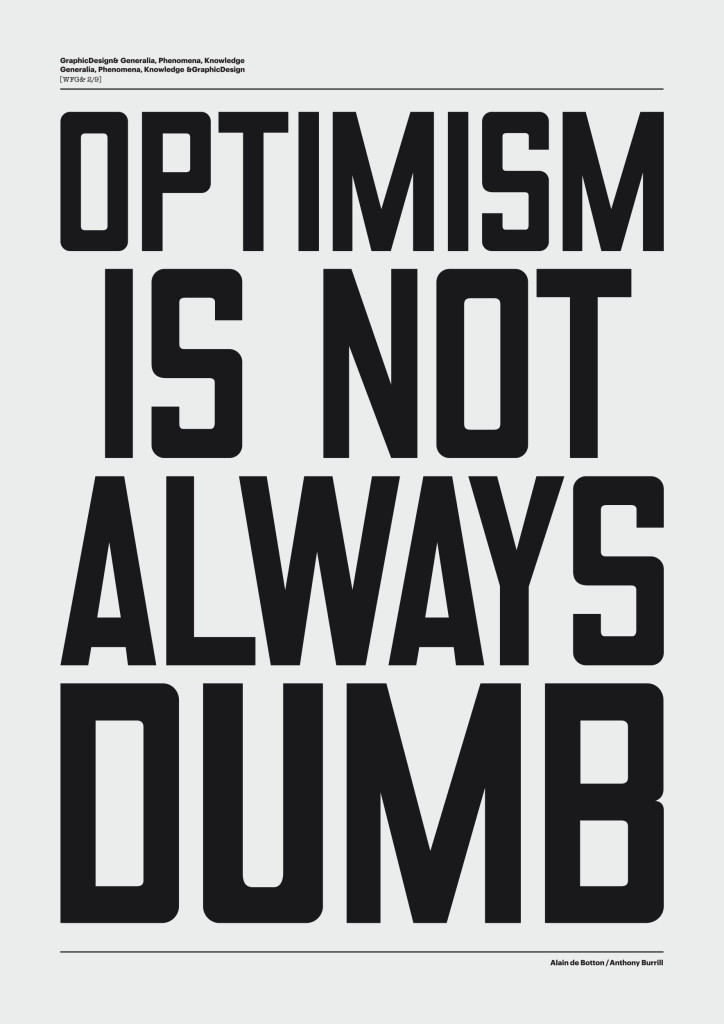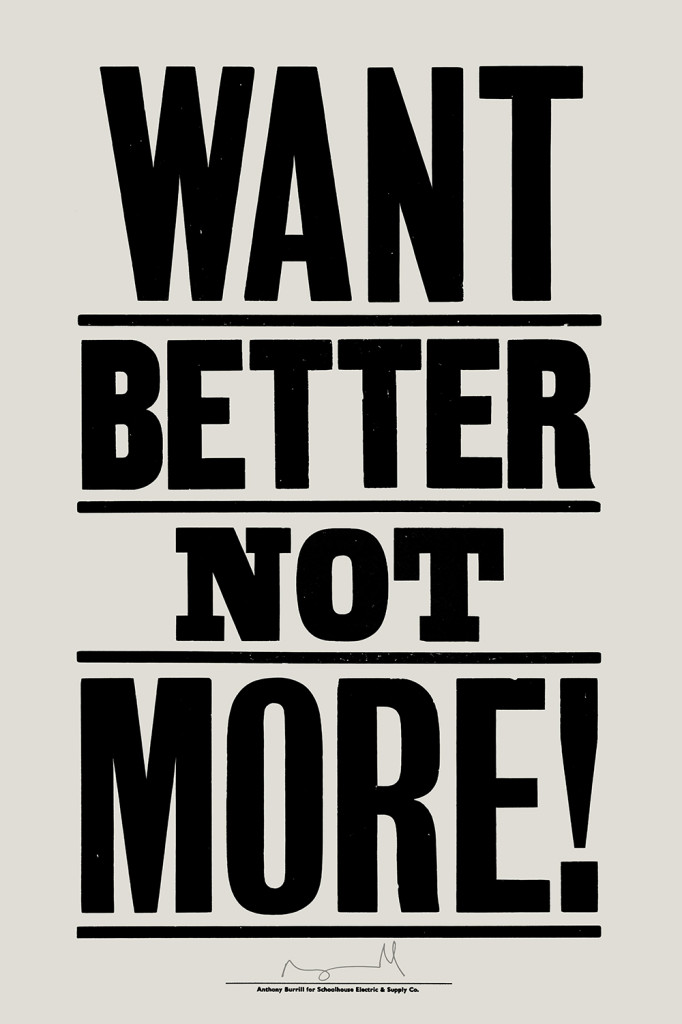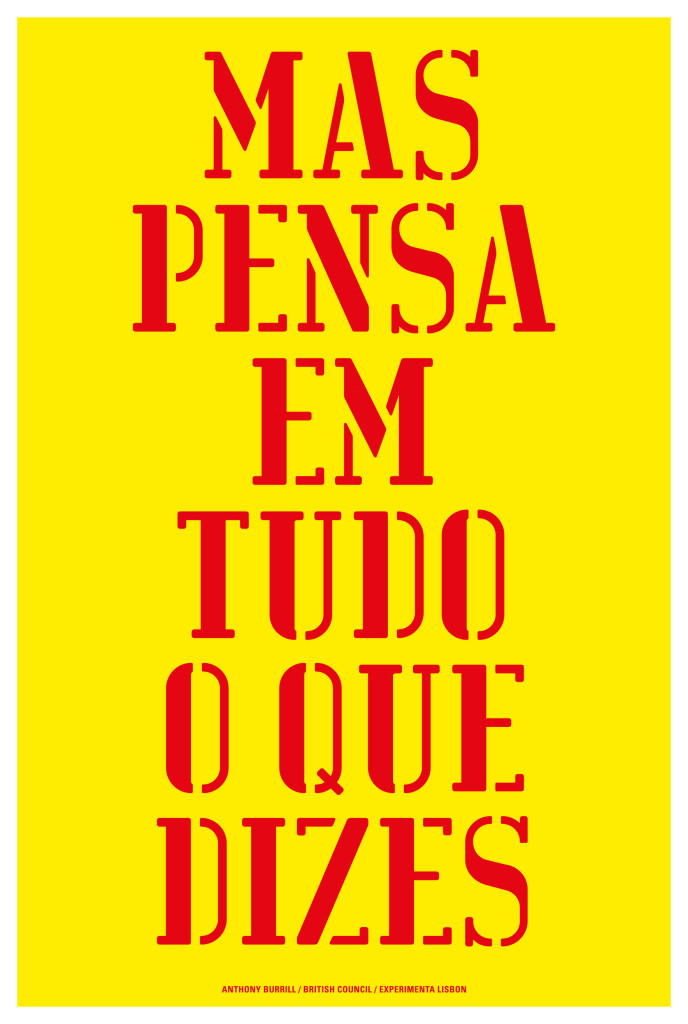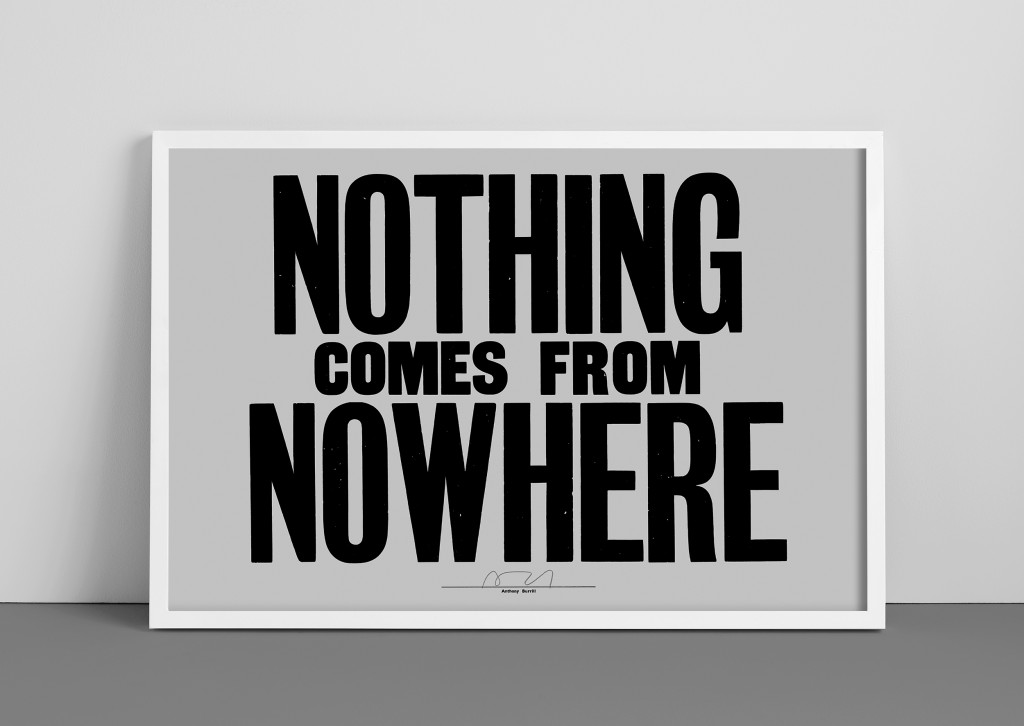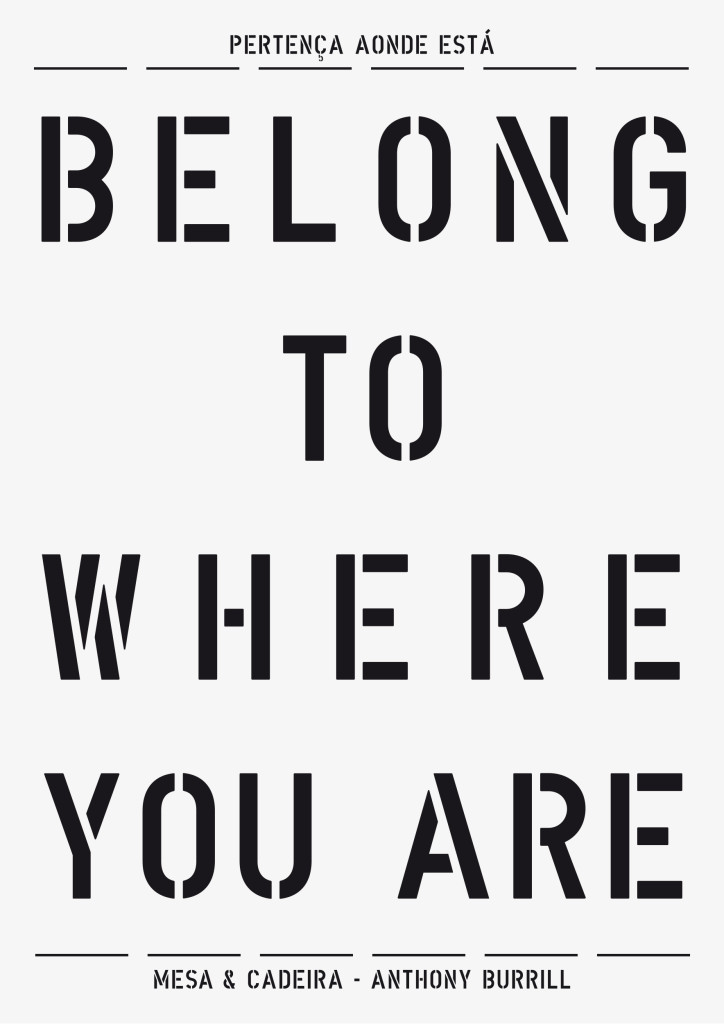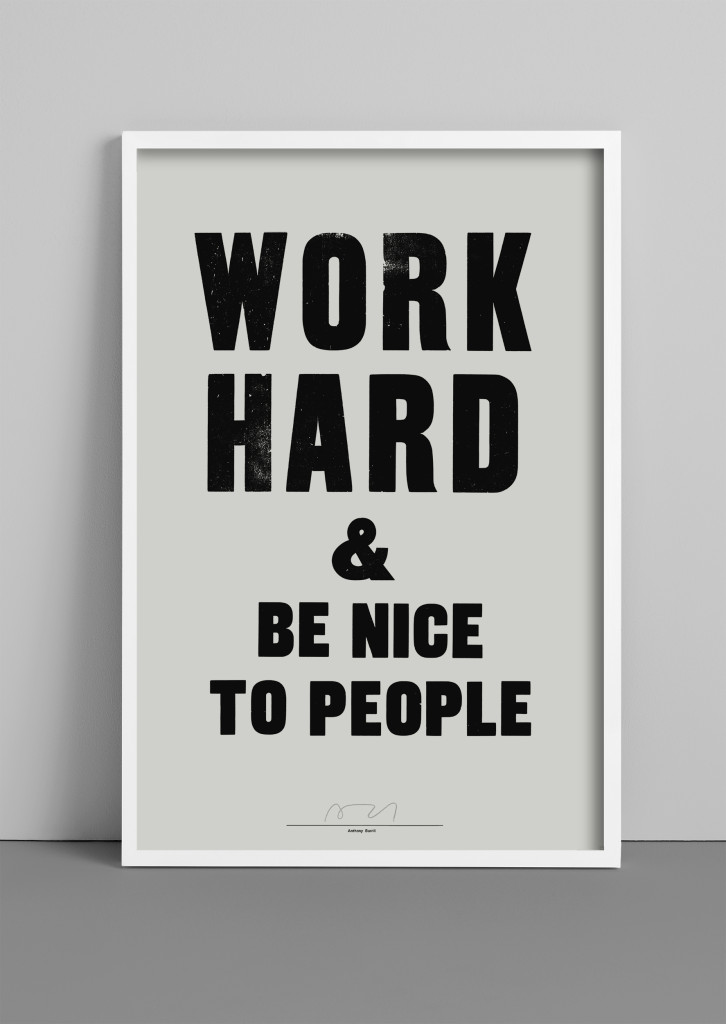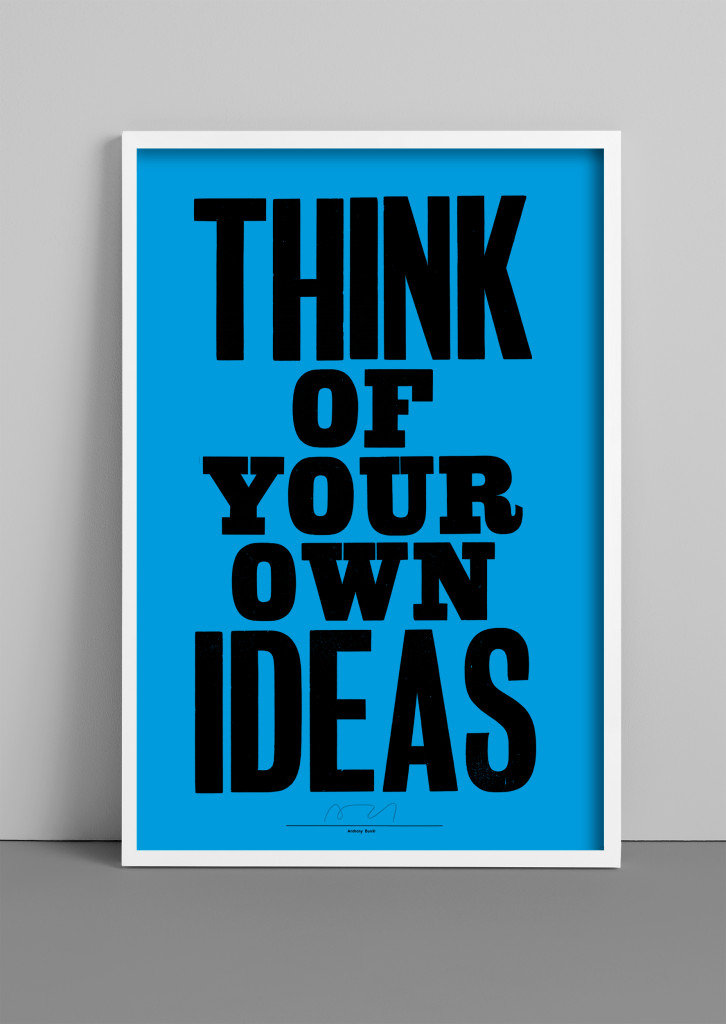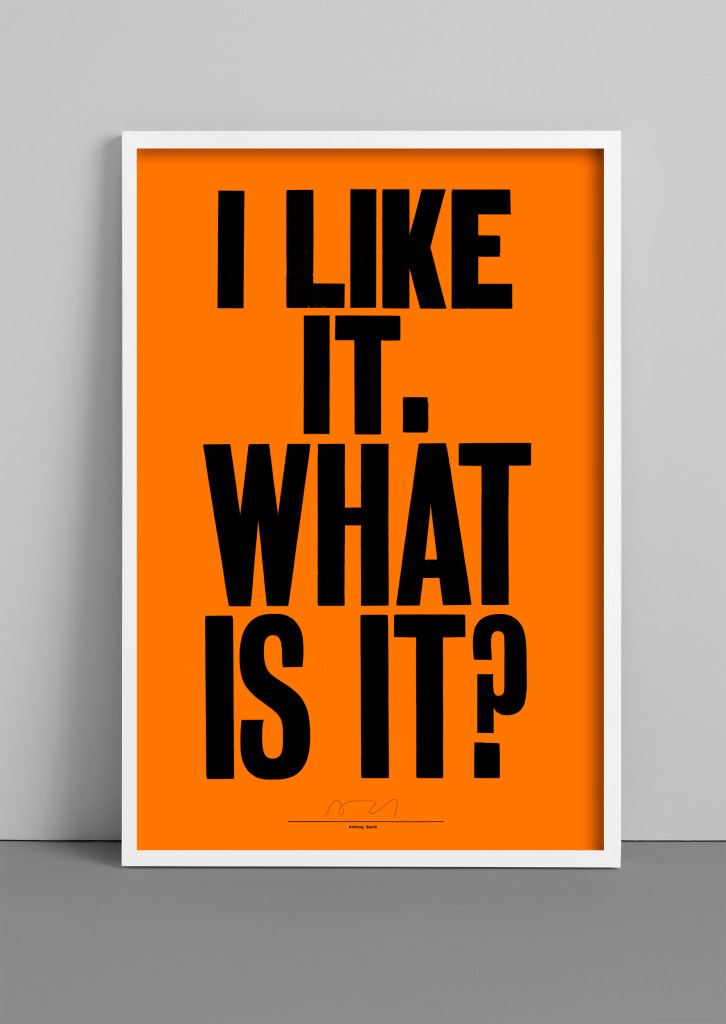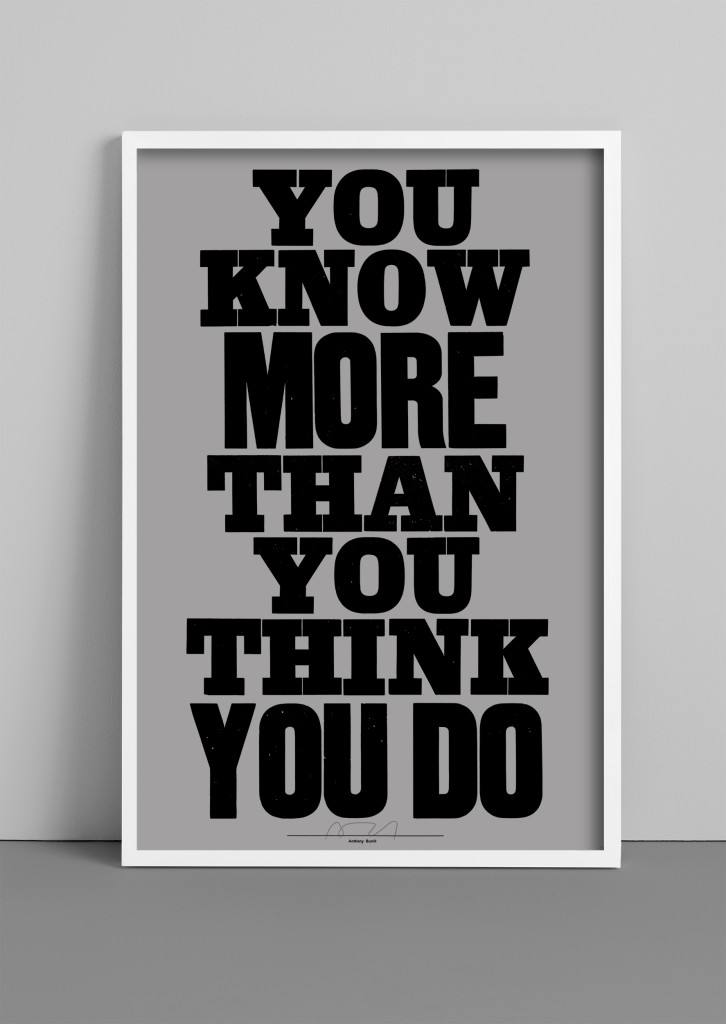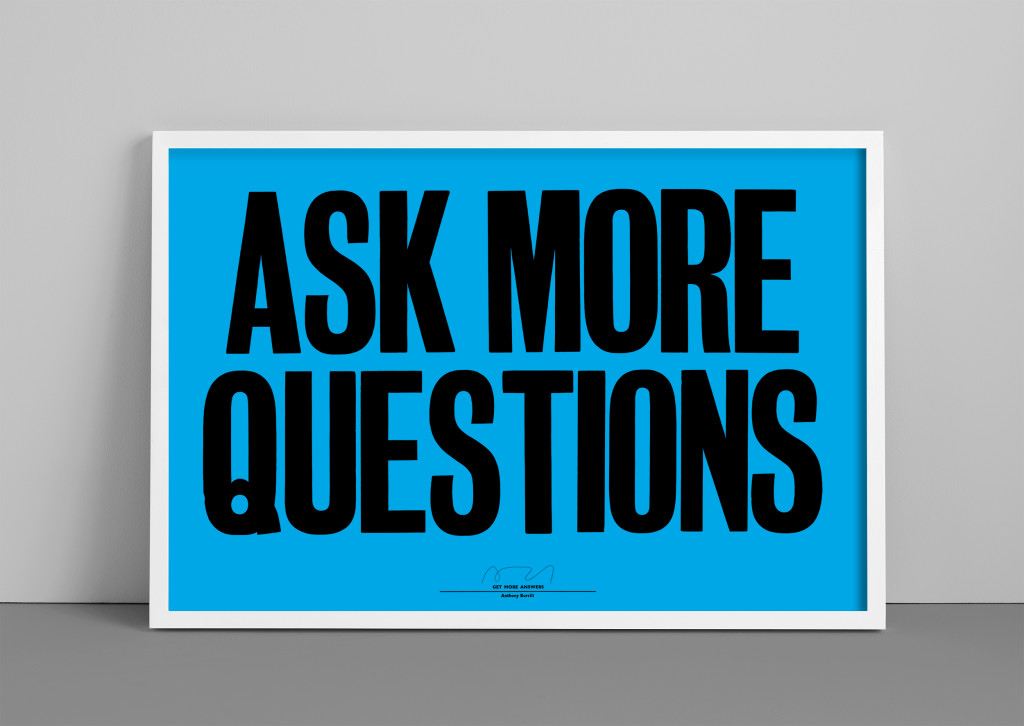
Anthony Burrill’s typographic survival guide for the living
Typographical innovation – the sheer ubiquity of words making true innovation an even greater achievement – comes in the form of designers such as Alan Kitching, Erik Spiekermann and Cornel Windlin; while Anthony Burrill, Tony Brook, Philippe Apeloig, Simon Esterson and Jonathan Barnbrook lead the more abstract, editorial and pictorial vanguard” writes Wallpaper magazine on the pioneering creatives that don’t just revert to type. Graphic artist, print-maker and designer Anthony Burrill couldn’t be more nonchalant.
Known for his persuasive, up-beat style of communication this artist’s work is held in the permanent collections of the Victoria and Albert Museum, the Cooper-Hewitt National Design Museum and has been exhibited in galleries around the world.
Graphic artist, print-maker and designer Anthony Burrill has developed a distinctive voice using words and language as an important part of his output and he is sought after not only by collectors but also by clients including Google, Hermés, the British Council, London Underground and the Design Museum. After all Burrilll’s typographic, text-based composition “Work Hard and Be Nice to People” has become a mantra for the design community and beyond.
While Burrill’s work is grounded in a serious devotion to his art, he has a lightness of touch and humor that, although often copied, is unique in the field of graphic communication. He frequently embarks on innovative collaborations with friends and fellow creatives. This is a selection of wisdom from a man that appreciates the message when it is loud, simple and clear.
“The very first time I used a phrase in my work was when I was a student at the Royal College of Art in the early nineties. I made a small zine called ‘Negativity Stifles Creativity’, it’s funny looking back now, I felt a bit misunderstood by the tutors. The reality was the work I was producing wasn’t very good and their criticism was valid. It was only after I left college that I began to understand what I was trying to say and how to say it successfully.”
“My work is an extension of my character, I like to keep things simple and direct, in both my work and my approach to life. Visually the work has similar threads running through it that haven’t altered much over the past twenty years. I like simple color palettes, a small range of typefaces, and easily accessible materials. The main thing for me is to make work that engages and amuses people.”
“I find working with analogue techniques very satisfying, there’s more soul in ink and paper than there is in a microprocessor… I embrace whatever comes along, whether that’s ancient printing methods or digital technology. I love the connectivity we can all achieve now, it adds to the richness of life. I’m old enough to remember life and work before the digital age, it wasn’t fun. There are aspects of the past that I remember with fondness, but they are far outweighed by the advantages and ease of communication we have now. The important thing is to appreciate the tools we have now, and to exploit the positive aspects of the non-stop stream of information we are exposed to every day.”
“I like British designers such as Abraham Games, Tom Eckersley and Alan Fletcher. I love pop art and the blankness of seventies conceptualism. I’m still an art fan, I try and see as many exhibitions as I can and love the feeling of seeing a show that really connects.”
“I encourage people to be honest, about themselves and their work. The better you understand yourself, the better your work becomes. It’s important to be happy in your work, it is reflected in the work you produce. A lot of creatives who work solely in a commercial context miss the freedom expression you can achieve through personal work. I encourage people to start self authored projects, to get back to basics and remember what it is they find exciting and inspiring.”
Simple, direct, honest and engaging, Burrill works with minimal means to produce work that engages and amuses. “I’ve always been fascinated by vernacular typography, hand-painted signs, scrawled messages – work that is simple and direct, but with a definite personality” he says. “I like to keep material choices simple, and that includes color. I specify pure color to print with, bright red, clear yellow and strong green, color straight out of the tin” he added.
“The work kind of reflects me as a person. It’s the way I live my life. It’s the way I’m happy and comfortable with—making work that’s produced very simply… It kind of talks about, I suppose, my life philosophy and a different way of living that’s not about amassing huge amounts of consumer goods. It’s just this different way of doing things, being independent and positive in the way you live.”